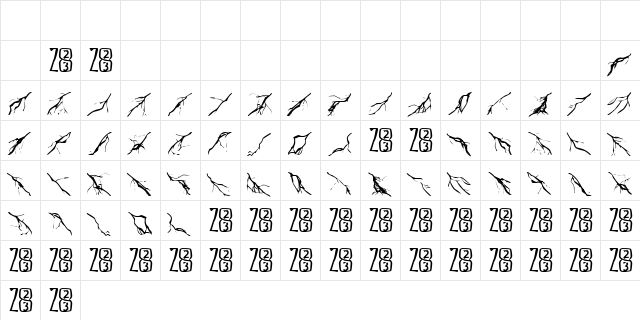
Zone23_Lightning Normal Font Preview
Zone23_Lightning Normal
Design Context for Zone23_Lightning Typeface
Zone23_Lightning is a composed and adaptable typeface that performs quietly and consistently across a wide range of design contexts. Its slender proportions lend an understated elegance to any composition.